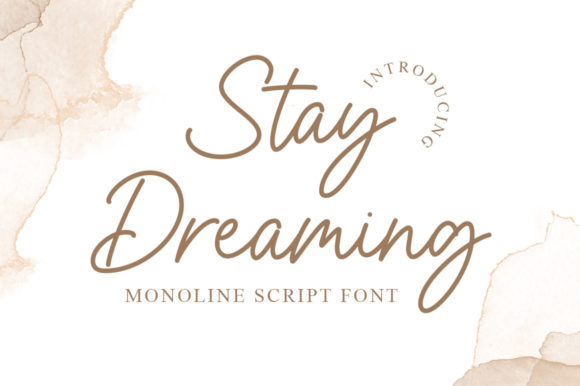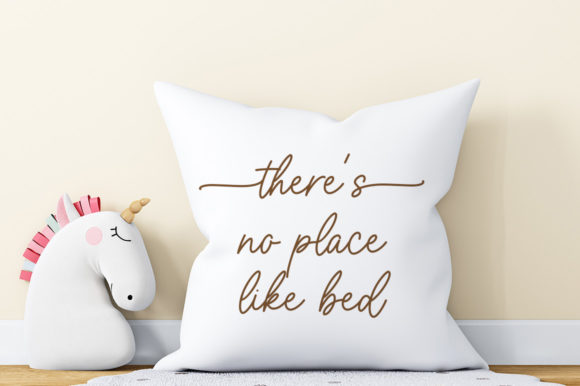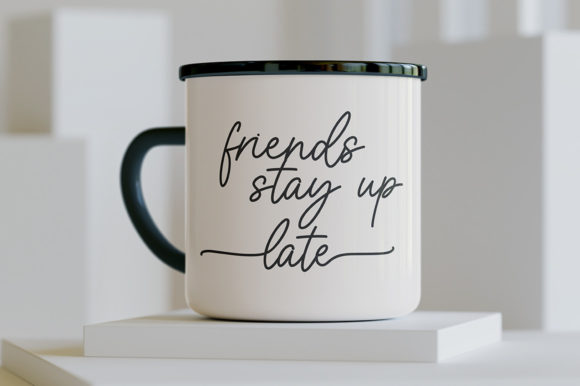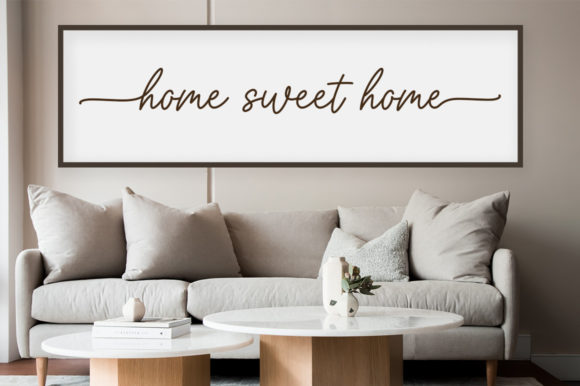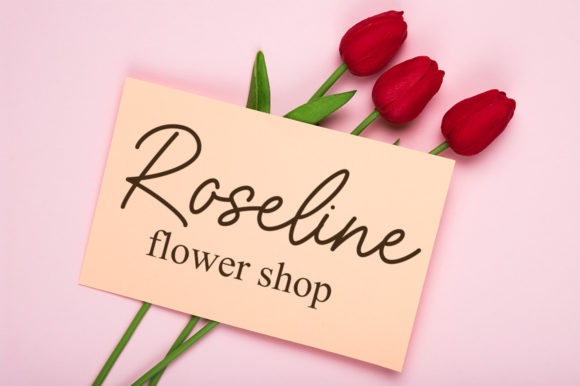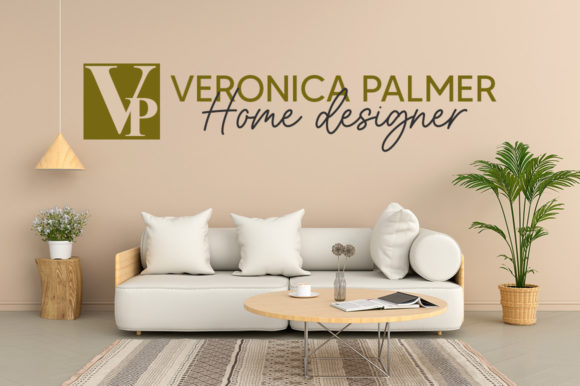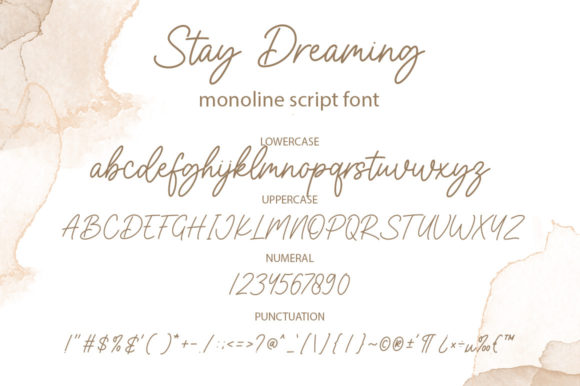
About Stay Dreaming Font
Stay Dreaming is a dainty and flowing handwritten font.
Sweet and joyful, this font will be ideal for writing wedding invitations, cards or any other design that may need a romantic, personalized touch! Stay Dreaming is PUA encoded which means you can access all of the glyphs and swashes with ease!